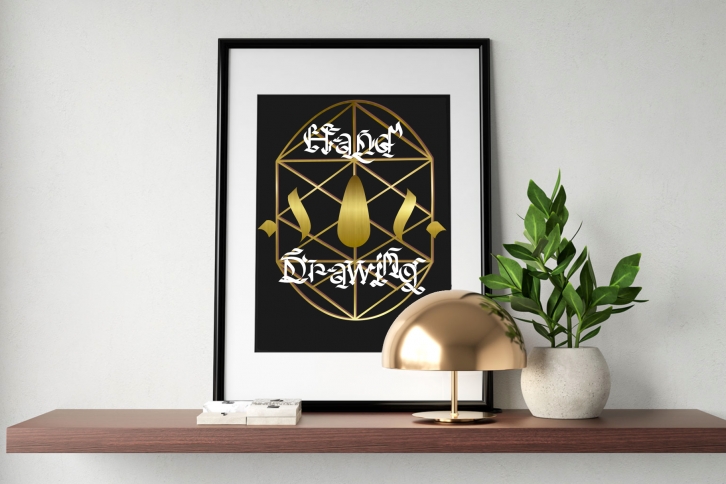
Hand drawing is a stunning blackletter font. With bold characters and a fierce vibe, this typeface is perfect for daring projects, motorcycle-related posts, and anything alike. This font is PUA encoded which means you can access all of the glyphs and swashes with ease!